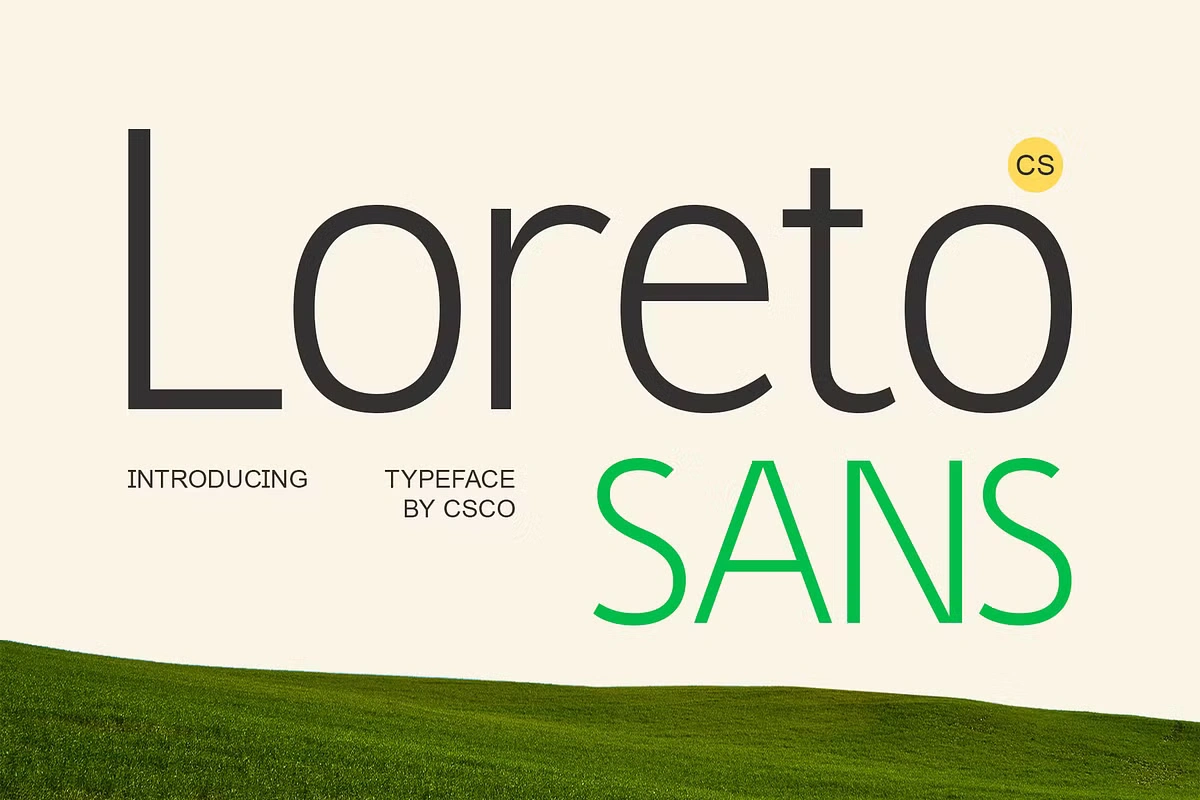
CS Loreto is a modern geometric sans serif font designed for clarity and impact. It features clean lines with subtle stylistic detailing, making it a perfect choice for professional and contemporary design projects. Its structured and balanced form ensures a sleek and polished appearance, enhancing both digital and print applications. Whether used for headlines or body text, CS Loreto provides a strong visual presence while maintaining readability.
With its contemporary aesthetic, CS Loreto meets the demands of various design needs. Its well-shaped letterforms ensure a smooth reading experience across different sizes, from bold headlines to small text. The font is designed to maintain consistency and legibility, making it an excellent choice for branding, editorial layouts, marketing materials, and user interfaces. It blends sophistication with functionality, making it a reliable asset for designers.
CS Loreto is more than just a typeface—it is a design tool that enhances creativity. Its versatility allows it to adapt to different styles and mediums, ensuring a seamless look across projects. Whether you’re designing a website, a corporate identity, or a print publication, CS Loreto delivers a refined and professional touch that elevates your work.